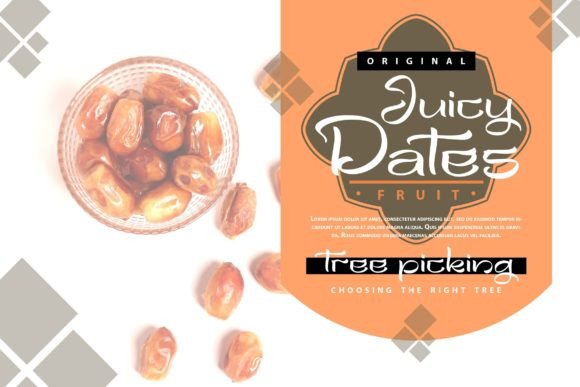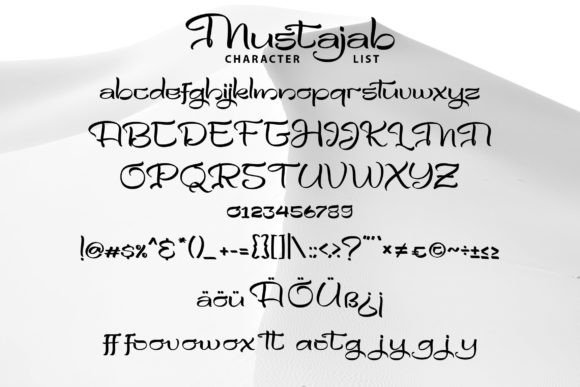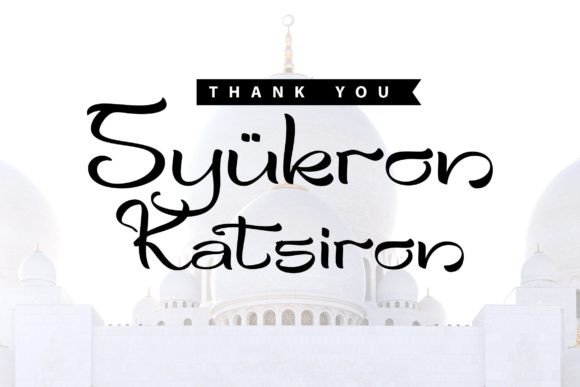
Introduction to Mustajab Font
Mustajab is an incredibly interesting display font with a refined Oriental vibe.
Add it confidently to your projects, and you will love the results This font is PUA encoded which means you can access all of the glyphs and swashes with ease.
Key Features of Mustajab Font